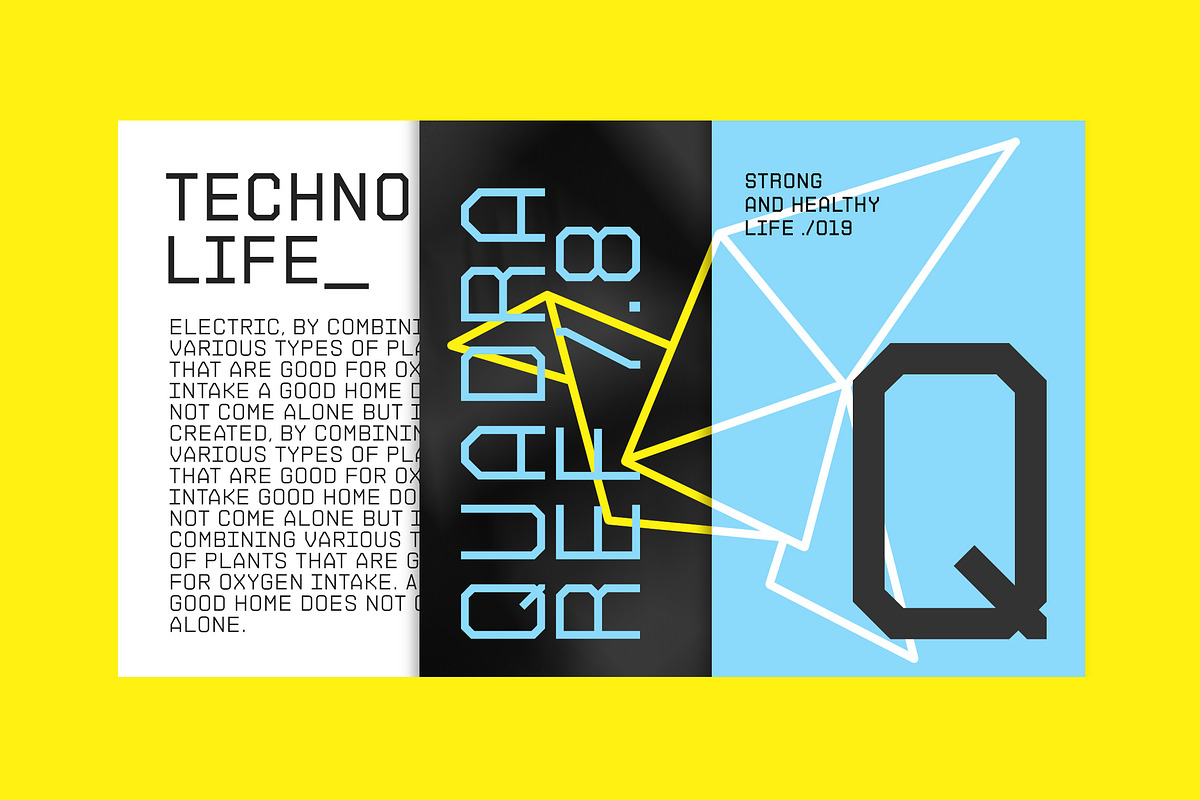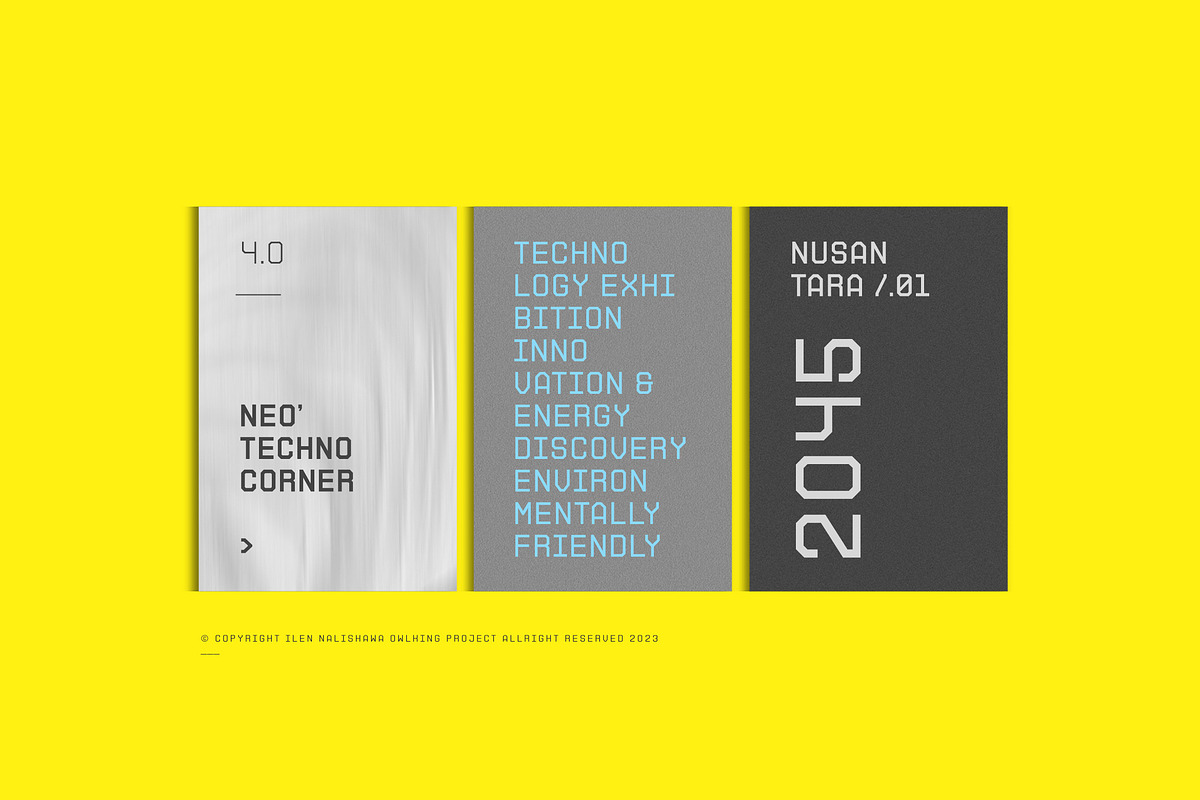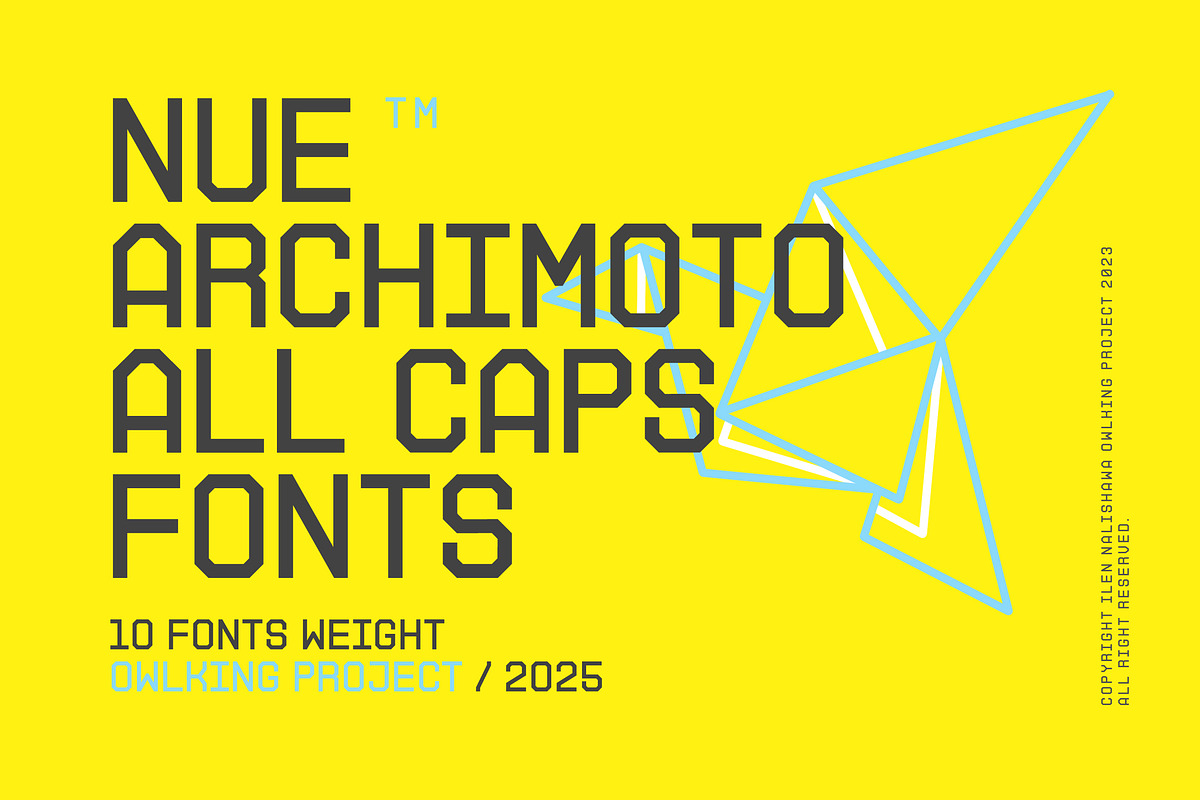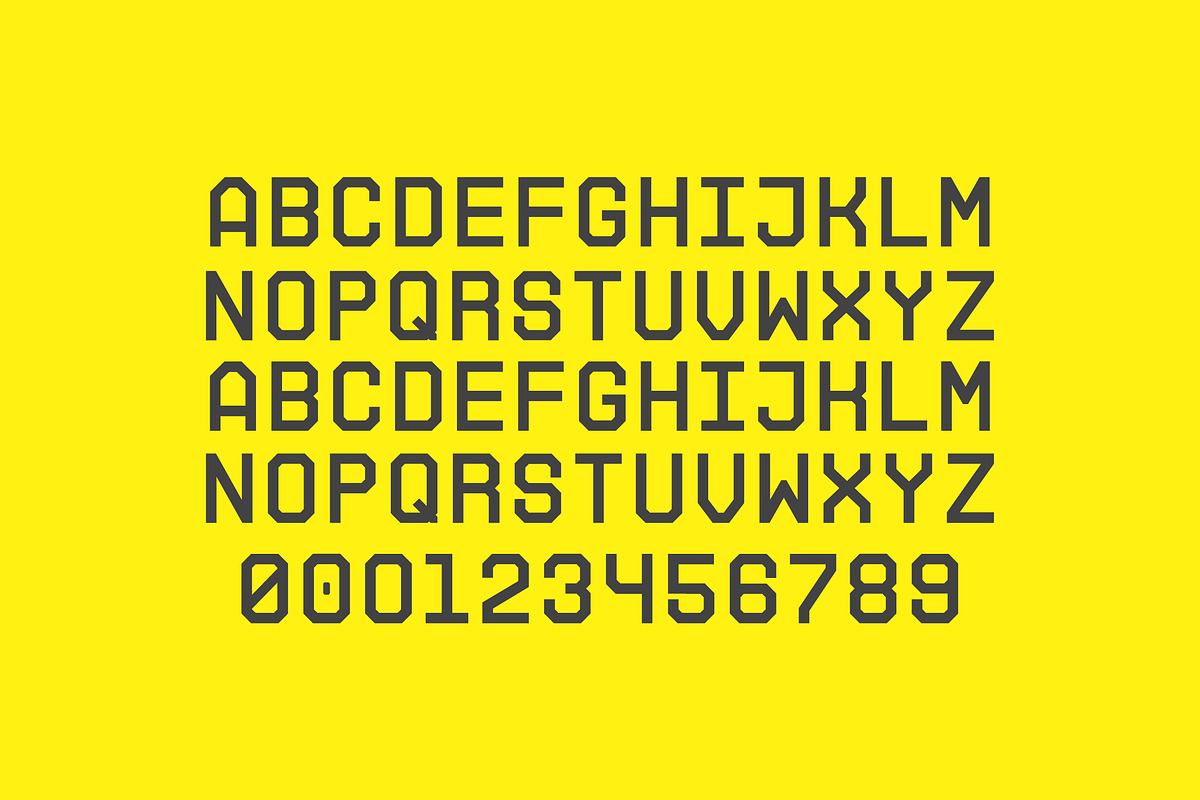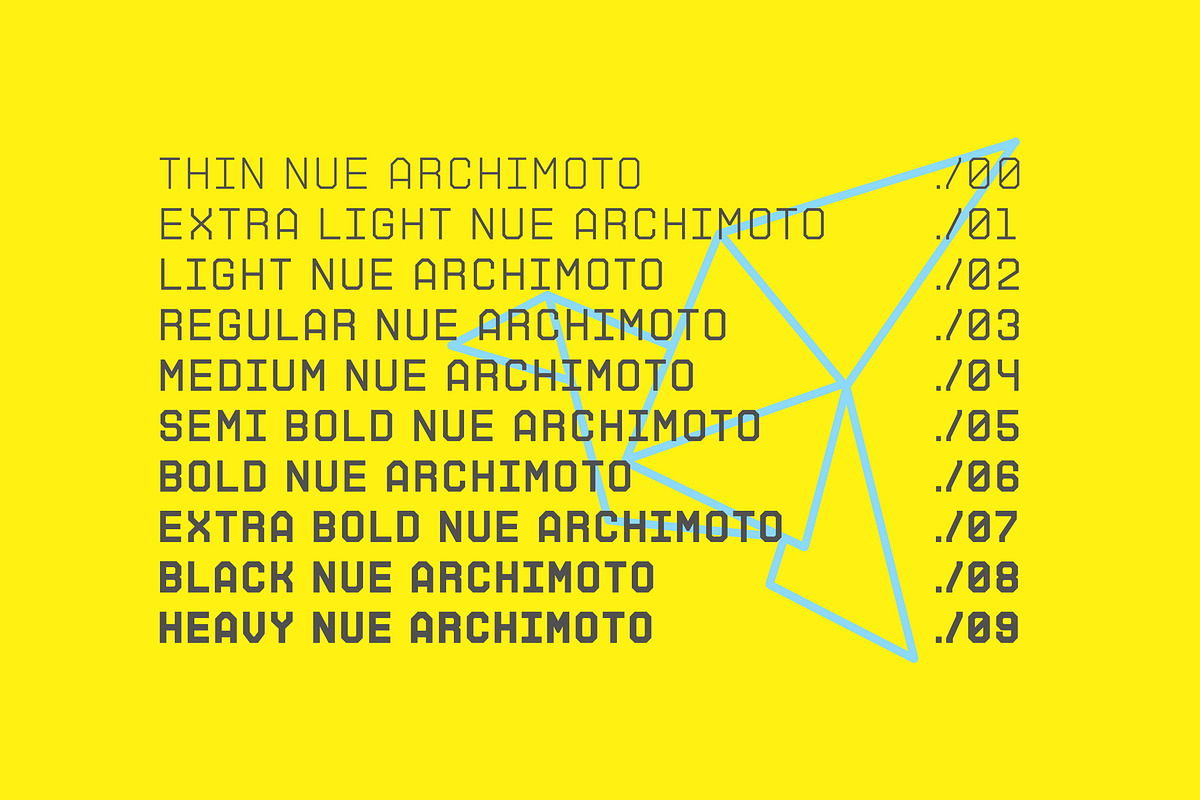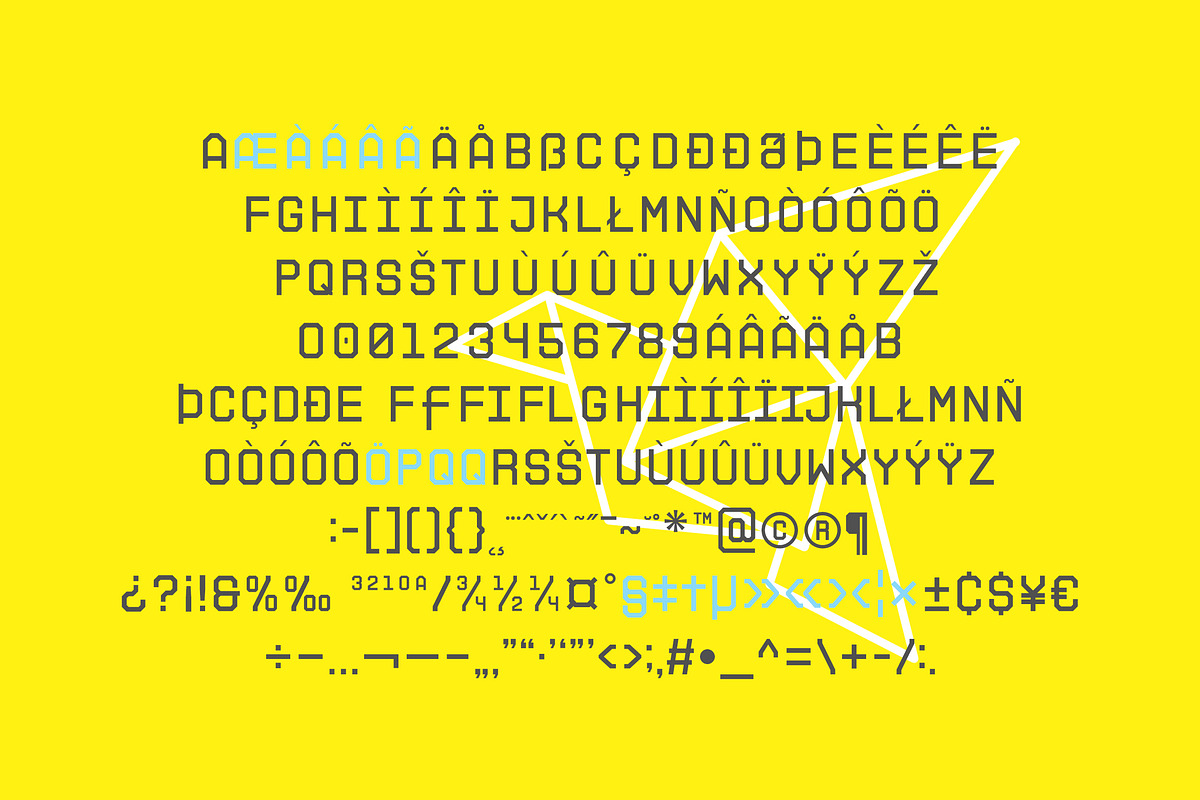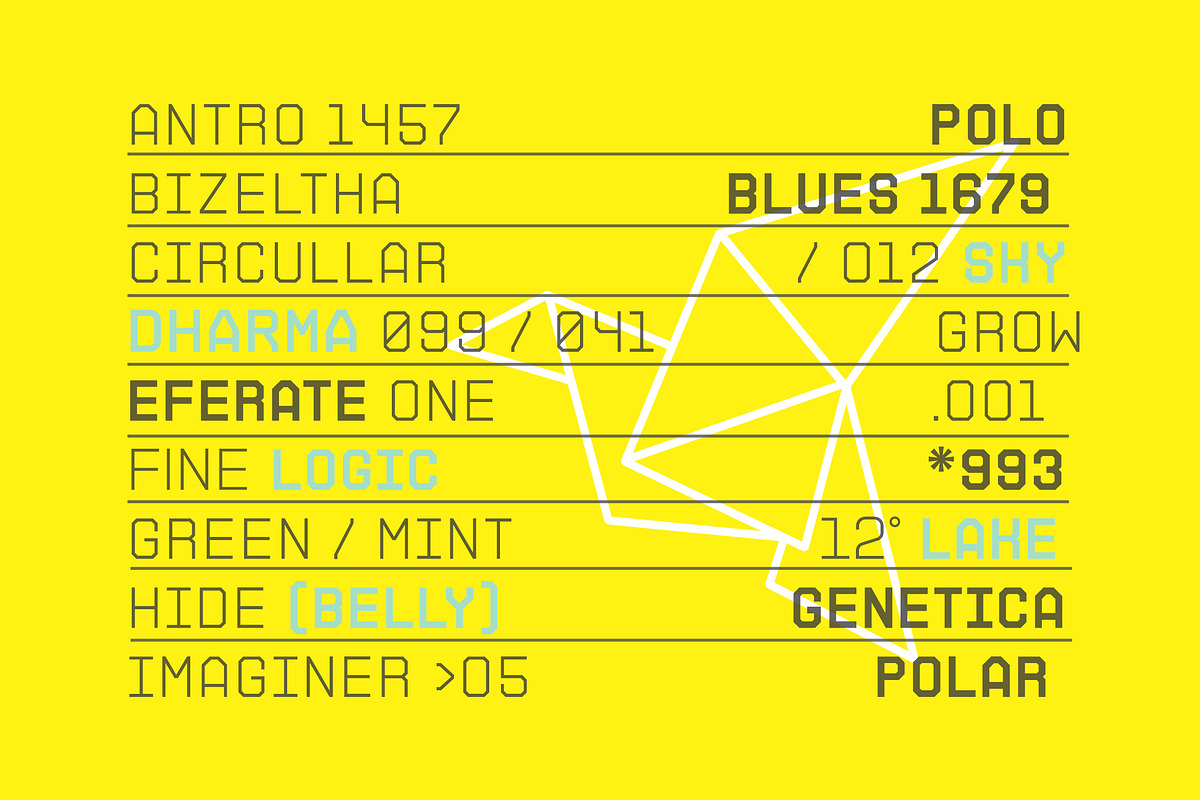
Nue Archimoto
Nue Archimoto is a refinement of the previous san serif font form to be simpler, still with a technological style, nue archimoto can also be applied in the form of modern design and can even be used for retro design.